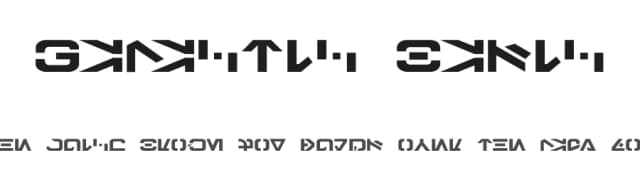
About Mandalorian Font
A movie-accurate version of the Mandalorian font, as seen in the Episode II Visual Dictionary and the 2004 Star Wars DVD release.